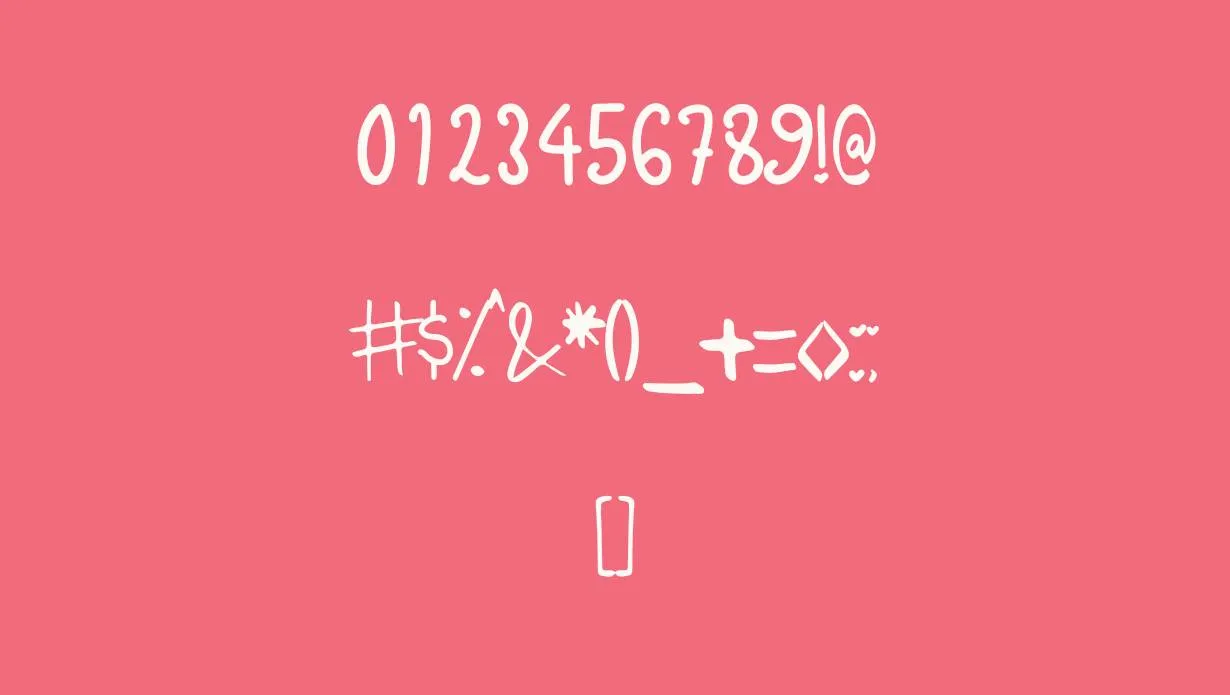
Honey Font is an attractive typeface with unique characters. This appealing typeface was created by a popular typographer named Mediengestaltung. This stunning typeface belongs to the script font family. It is available in single regular weight.
This marvelous typeface is comprised of a large character set which includes uppercase alphabets, lowercase alphabets, numerals, punctuations, and special characters.